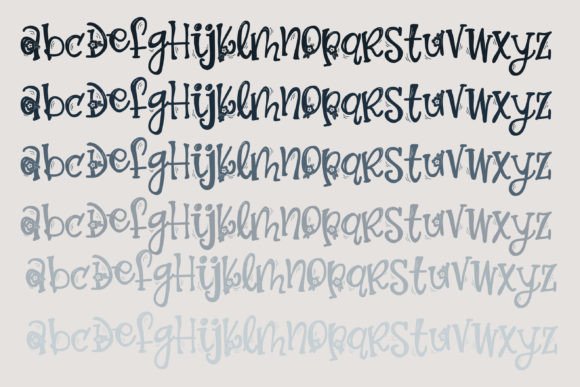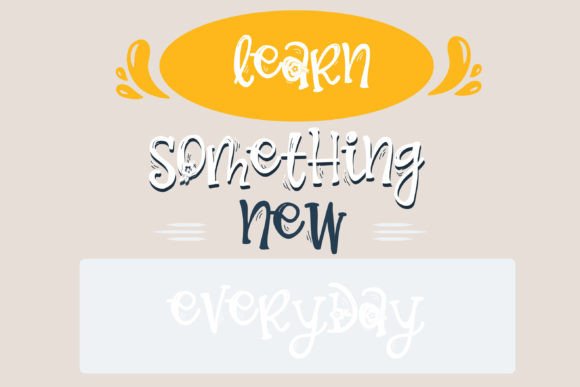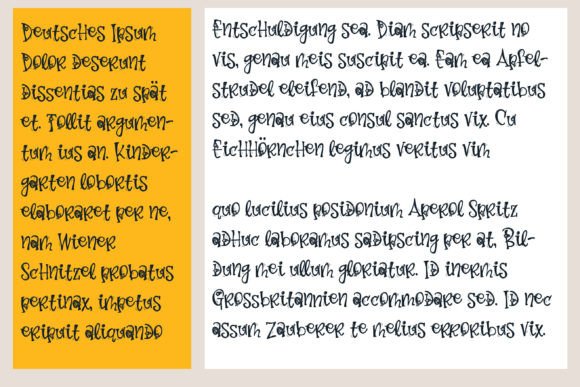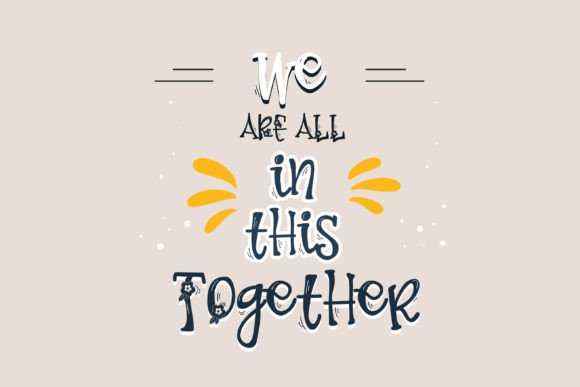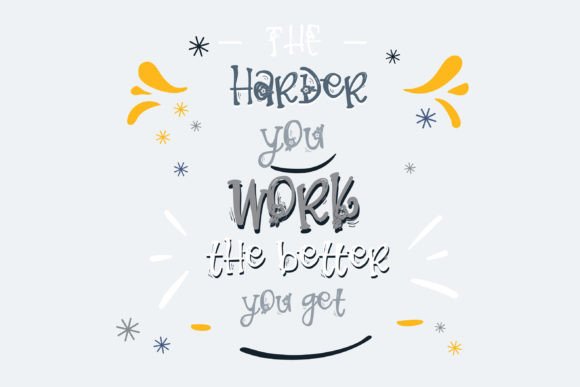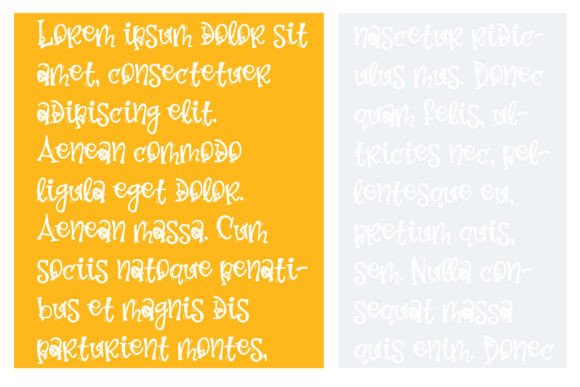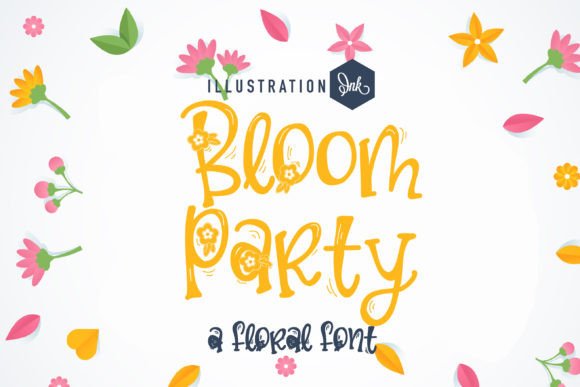
Bloom Party Font: Elevate Your Designs with Charming Floral Elegance
Are you a designer, crafter, or DIY enthusiast looking for a unique and beautiful font to add a touch of nature and elegance to your projects? Look no further than the Bloom Party Font! This stunning decorative handwritten font features charming flower designs that are sure to make your invitations, greeting cards, and creative projects stand out.
What is Bloom Party Font?
Bloom Party Font is a carefully crafted digital font that showcases intricate and beautiful floral designs. Each letter and character is designed to resemble a hand-drawn piece of art, with delicate flowers, leaves, and stems woven together to create a stunning visual effect. The font is perfect for anyone looking to add a touch of whimsy and elegance to their designs.
Key Features of Bloom Party Font
- Beautiful Floral Designs: The font features intricate and charming flower designs that are sure to add a touch of nature and elegance to your projects.
- Handwritten Style: The font has a handwritten style that gives it a personal and unique touch.
- Decorative Elements: The font includes decorative elements such as leaves, stems, and flowers that can be used to add a touch of whimsy to your designs.
- Elegant and Whimsical: The font is perfect for creating elegant and whimsical designs that are sure to impress.
Uses for Bloom Party Font
Bloom Party Font is a versatile font that can be used for a variety of projects, including:
- Invitations: Use the font to create beautiful and elegant invitations for weddings, parties, and other special events.
- Greeting Cards: Add a touch of nature and elegance to your greeting cards with the Bloom Party Font.
- Creative Projects: Use the font to add a unique and beautiful touch to your creative projects, such as scrapbooking, journaling, and mixed media art.
- Stationery: Create beautiful and elegant stationery with the Bloom Party Font, perfect for writing letters or creating gift tags.
Tips for Using Bloom Party Font
Here are a few tips for using the Bloom Party Font in your designs:
- Use it sparingly: The font is intricate and beautiful, so use it sparingly to add a touch of elegance to your designs.
- Pair it with other fonts: Pair the Bloom Party Font with other fonts to create a unique and interesting visual effect.
- Experiment with colors: Experiment with different colors and textures to add depth and interest to your designs.